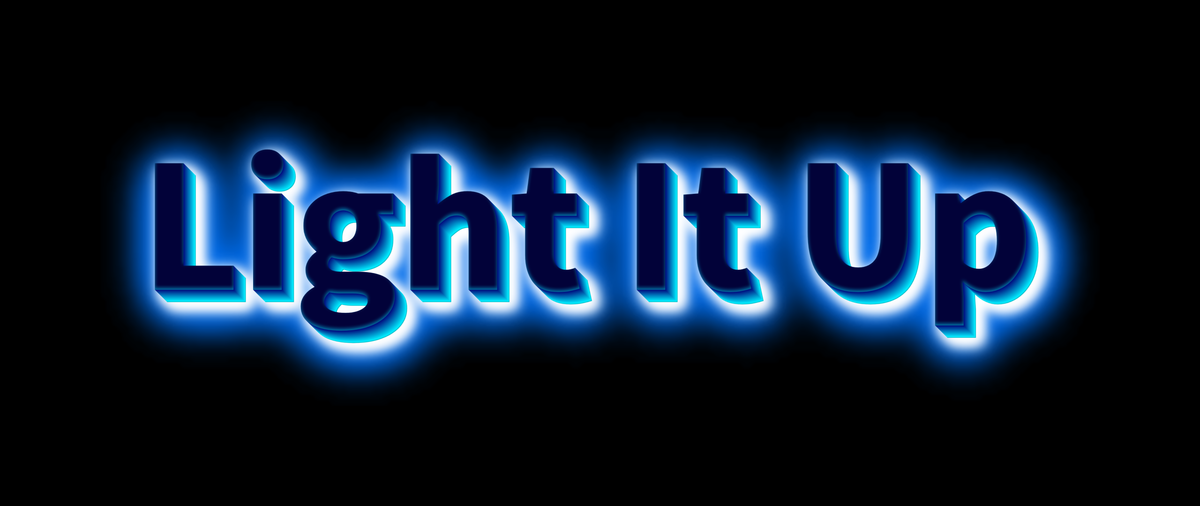
Neon Fonts & Glowing Text Effects You’ll Love
Neon lights always attract attention. They shine, glow, and instantly bring energy to any scene. In graphic design, a neon font can do the same — it makes your text pop off the screen and feel alive. Let’s explore how to create bright, colorful neon text effects that make your designs shine.
What Makes a Neon Font Special
A neon font style mimics the glowing look of real neon tubes. Thin, curved letters filled with bright light give your design a cool night-life feeling. Neon colors like pink, blue, or purple are the most popular, and they work best on dark backgrounds for maximum contrast.
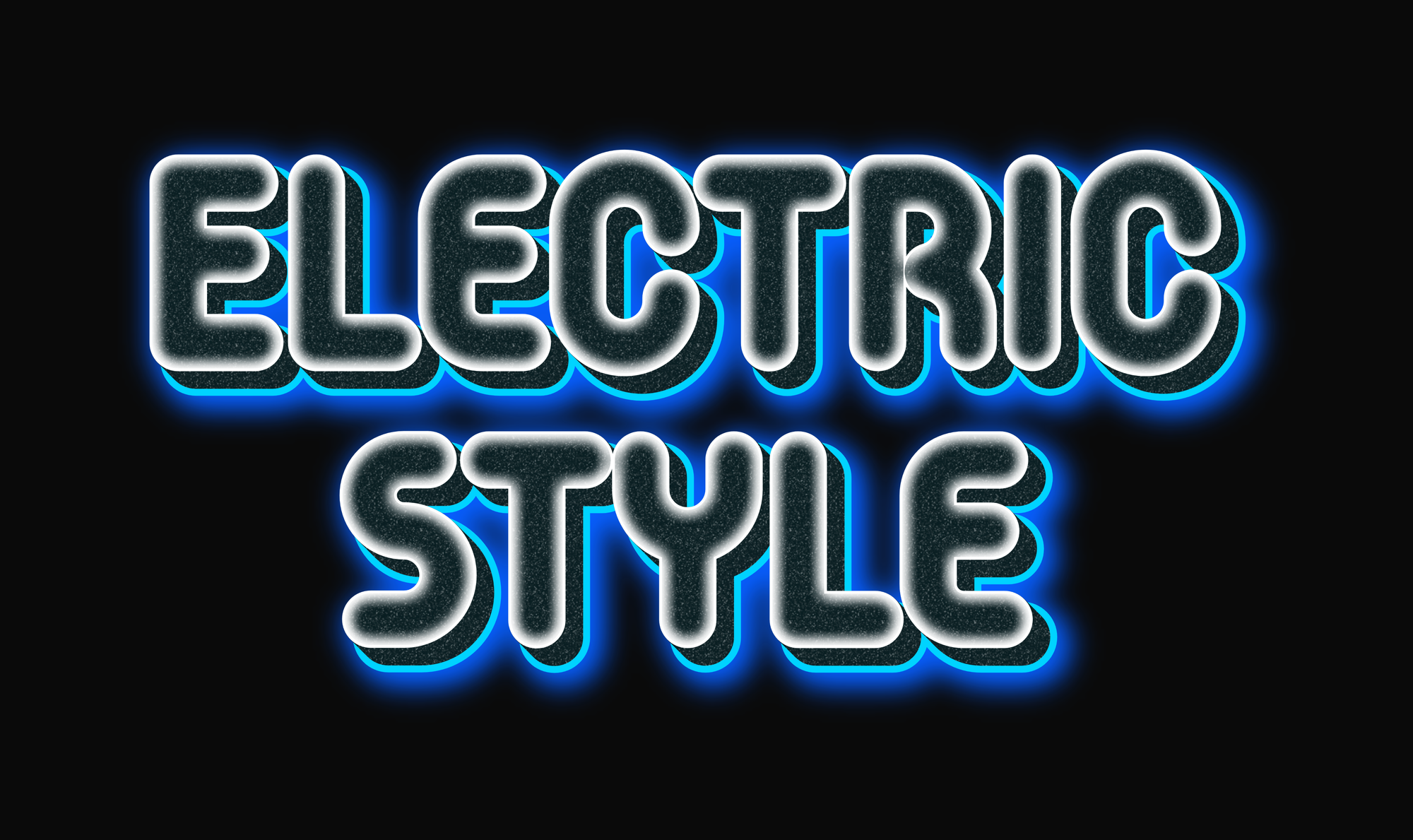
Play with Color and Glow
One of the best things about neon text effects is how easily you can customize them. Try mixing different colors for the glow, or add soft shadows to make the letters stand out. A pink-to-blue gradient or a soft white glow gives a modern, dreamy look — perfect for posters, social media posts, or digital invitations.
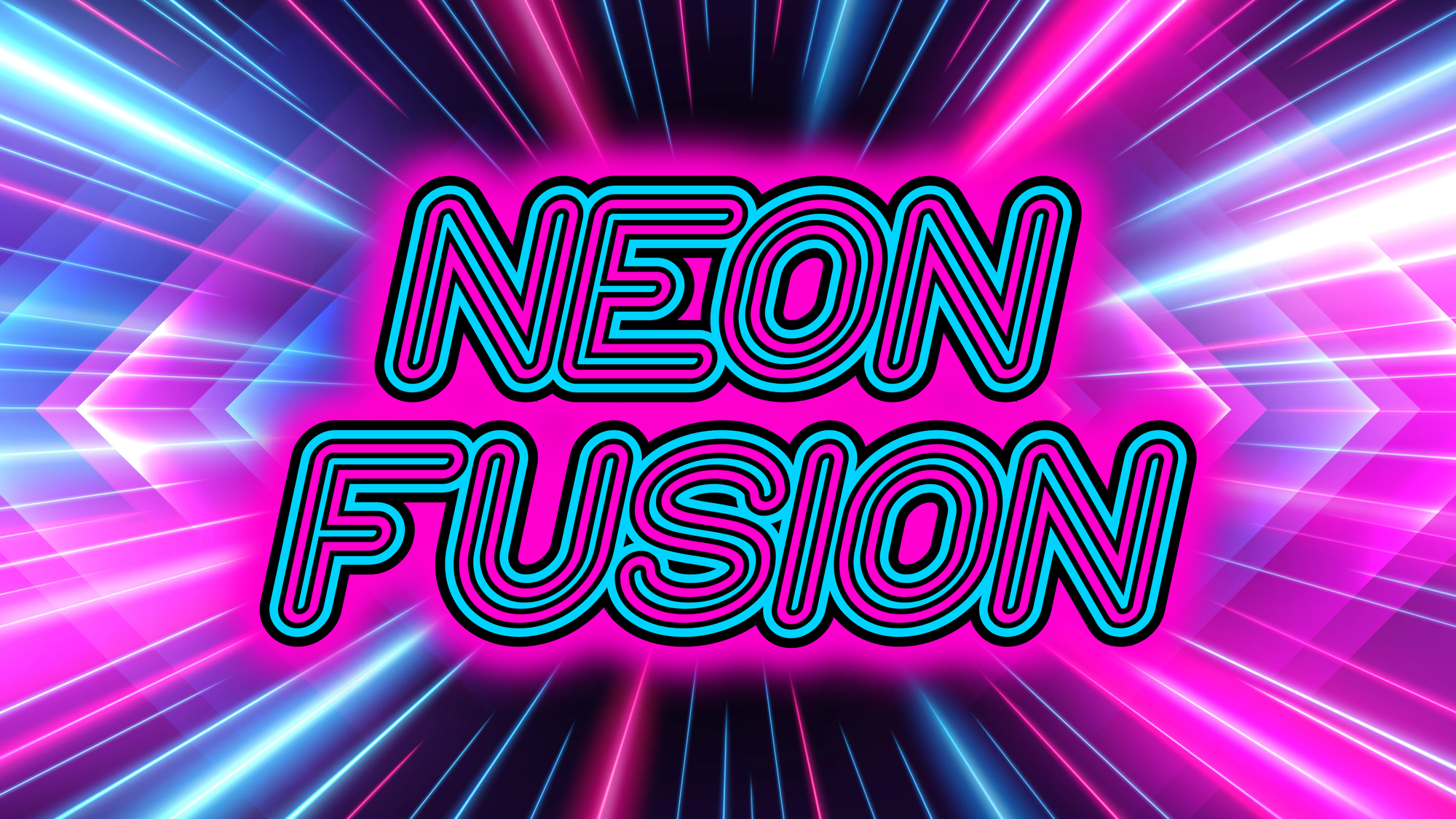
Neon Signs and Retro Inspiration
The design world loves neon sign fonts because they remind us of vintage cafés, city streets, and retro club signs. This nostalgic style fits perfectly for logos, YouTube thumbnails, or event graphics that need personality and sparkle. Combine it with reflections or blurred light for extra realism.
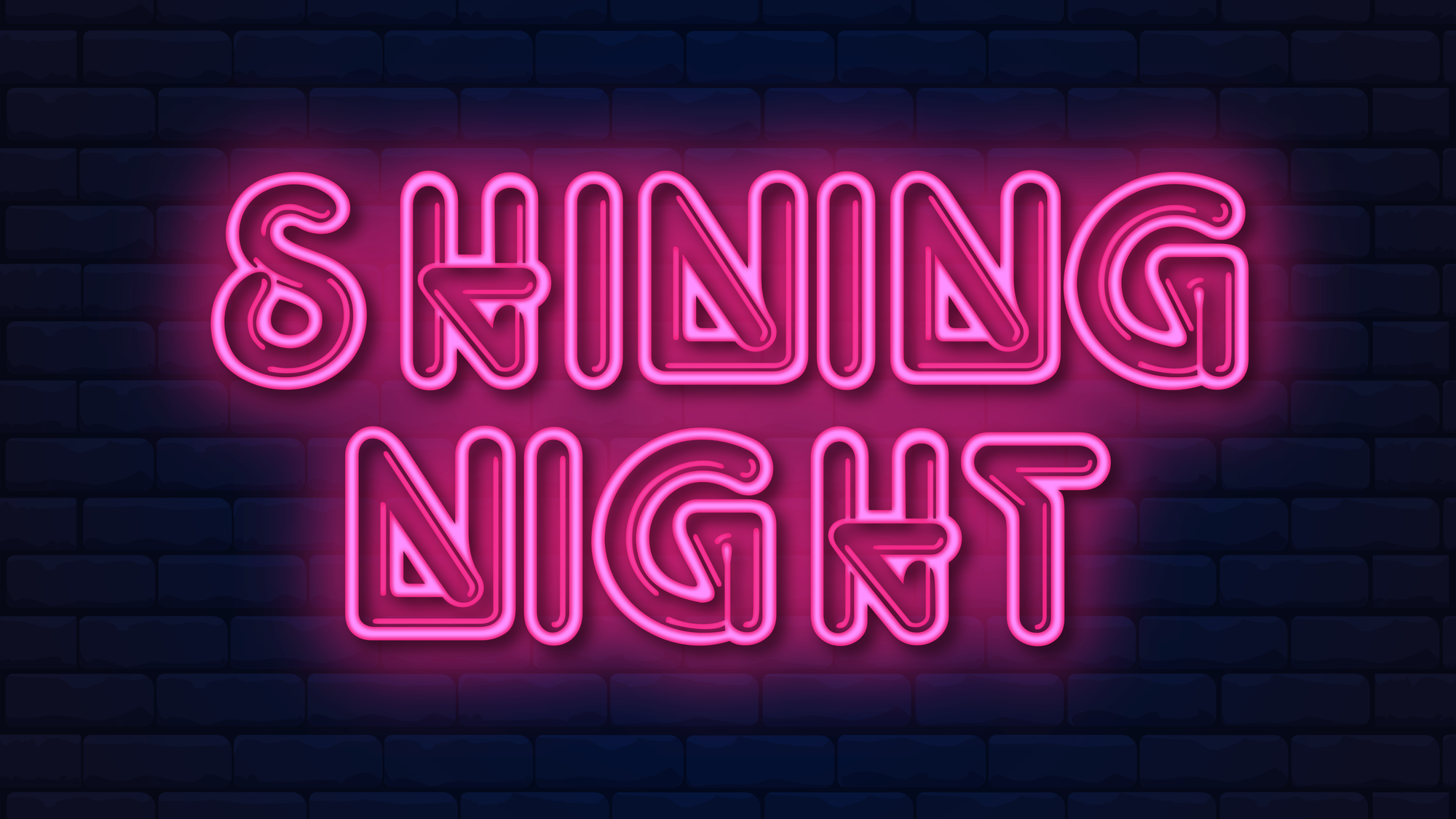
Modern Neon Typography
Today’s designers use neon fonts in creative new ways — not just for retro looks. A glow font with bold letters and soft gradients feels futuristic and stylish. Pair it with a clean background and bright color palette to get that digital neon vibe seen in music covers and gaming designs.
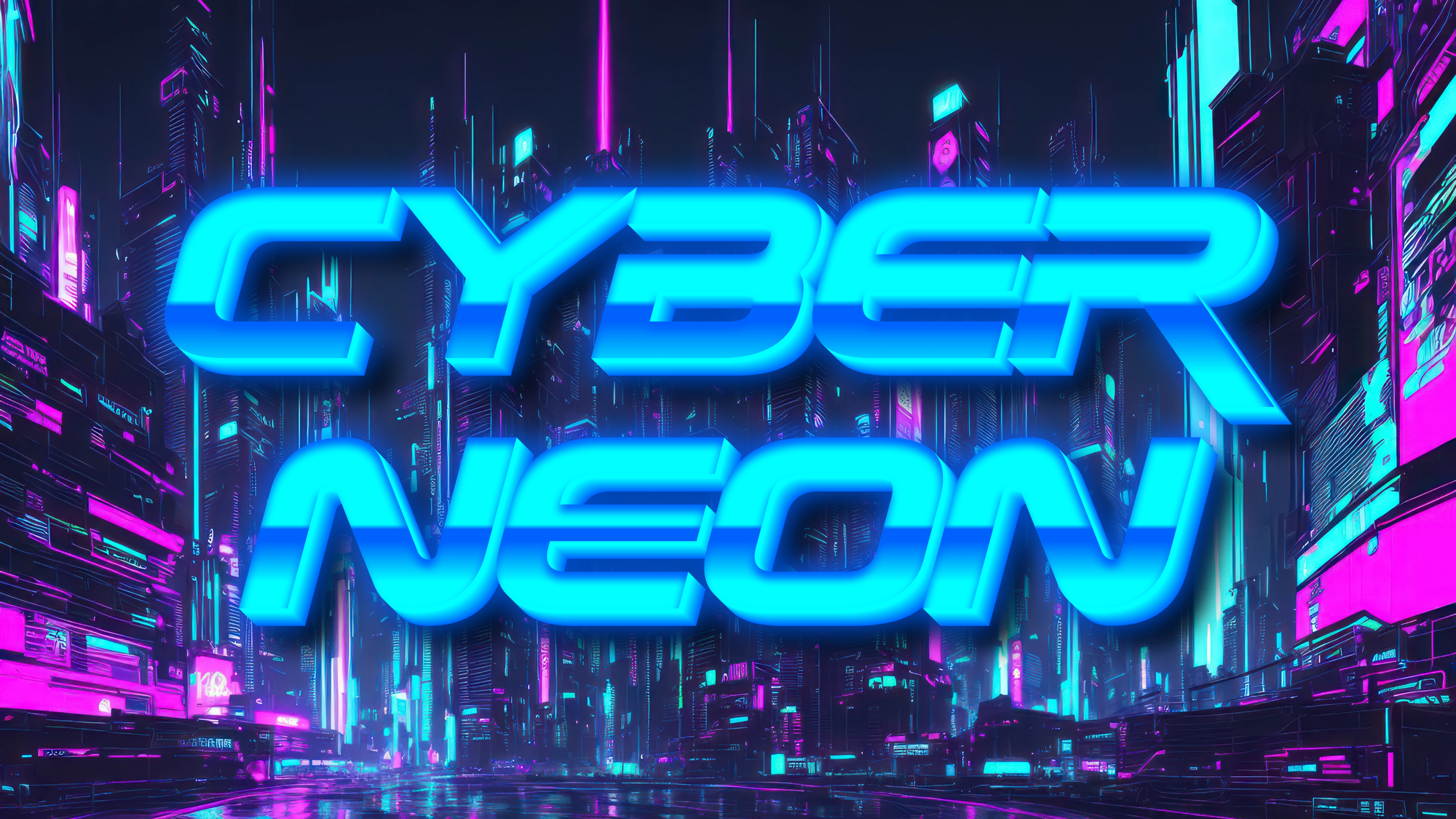
Conclusion
Neon fonts and glow effects are a fun, creative way to bring light into your text. They add color, energy, and style to any message — from retro to modern. Explore different shades, glows, and backgrounds until your text truly shines. Try the neon text effects collection on TextStudio to start creating your own glowing designs today.